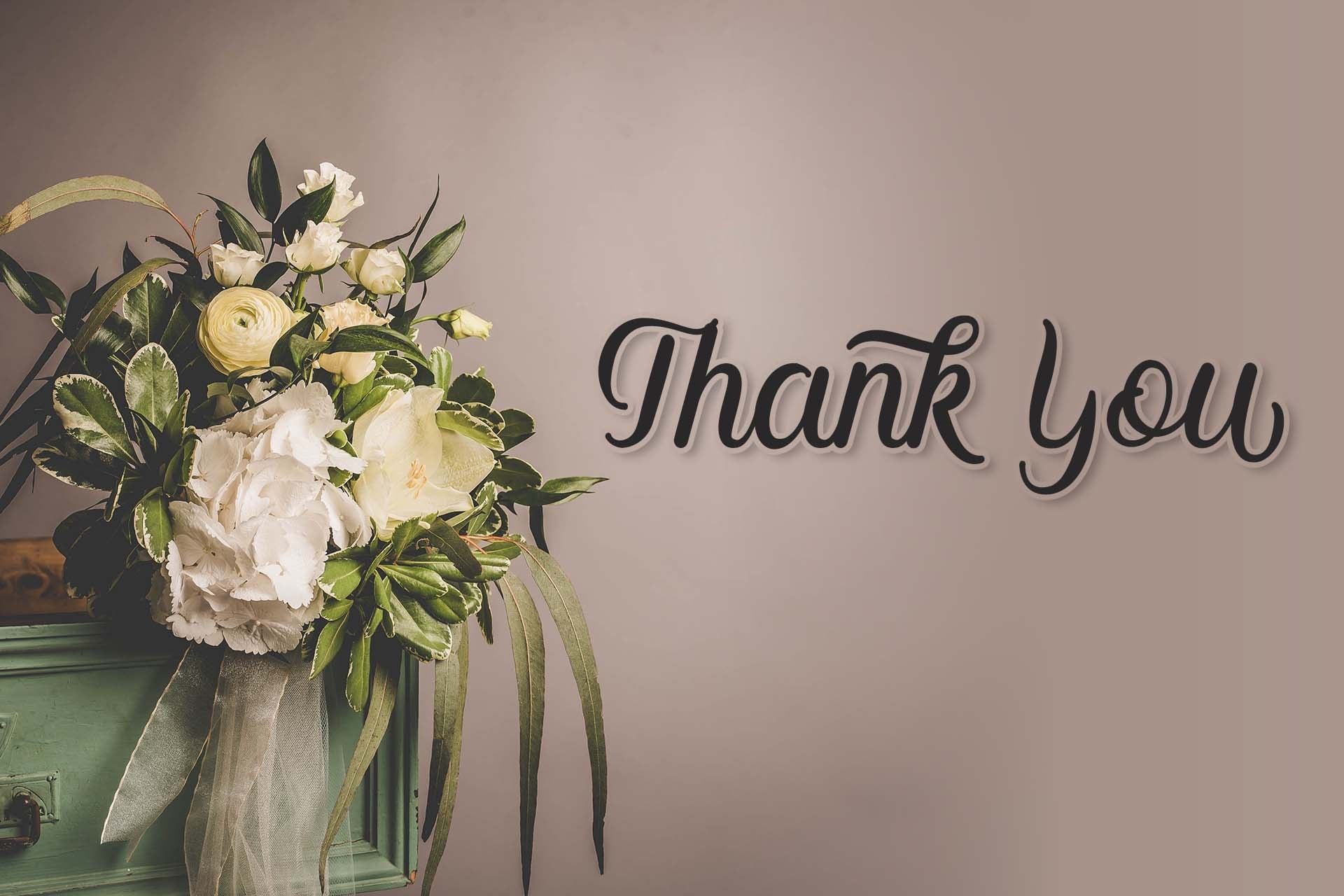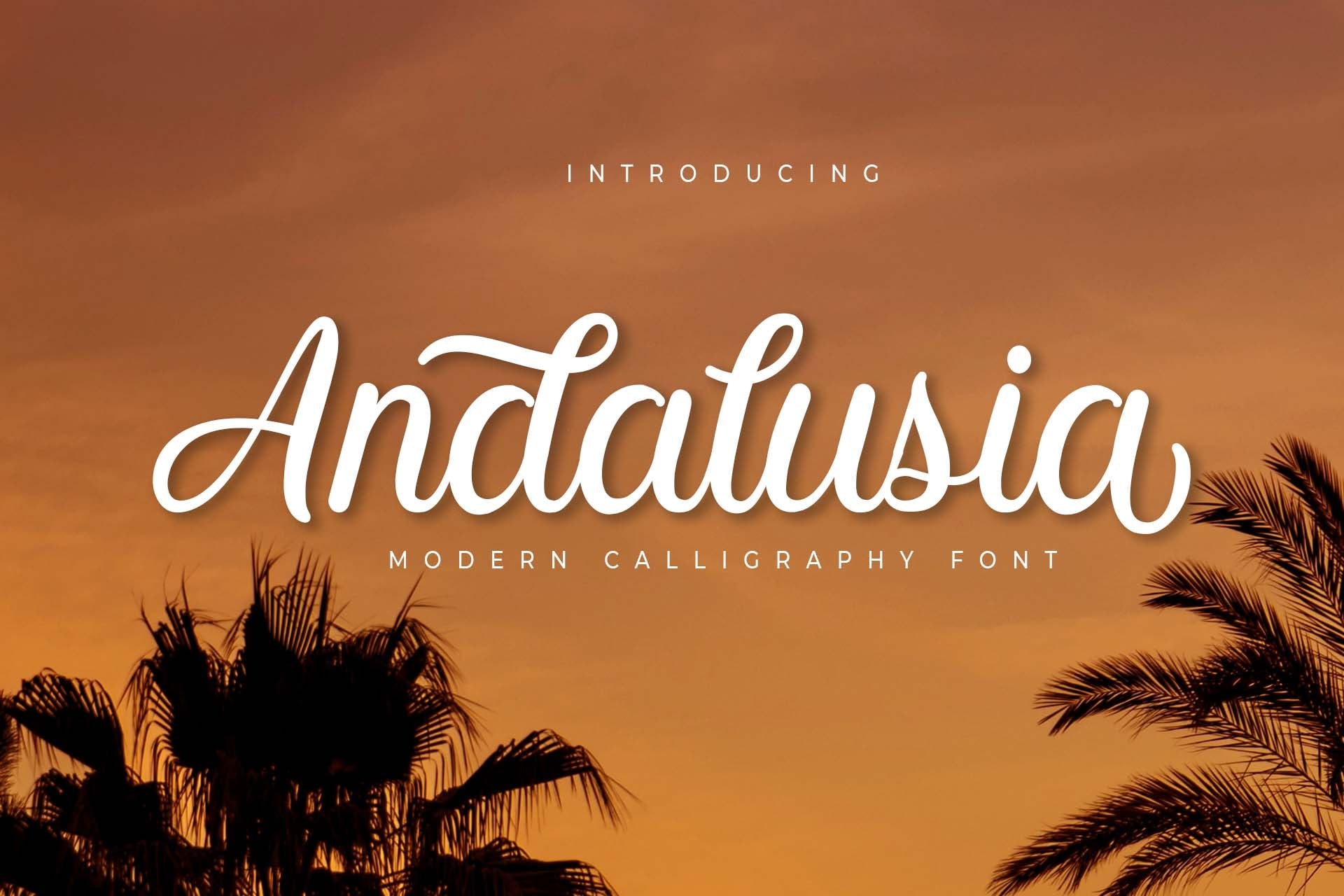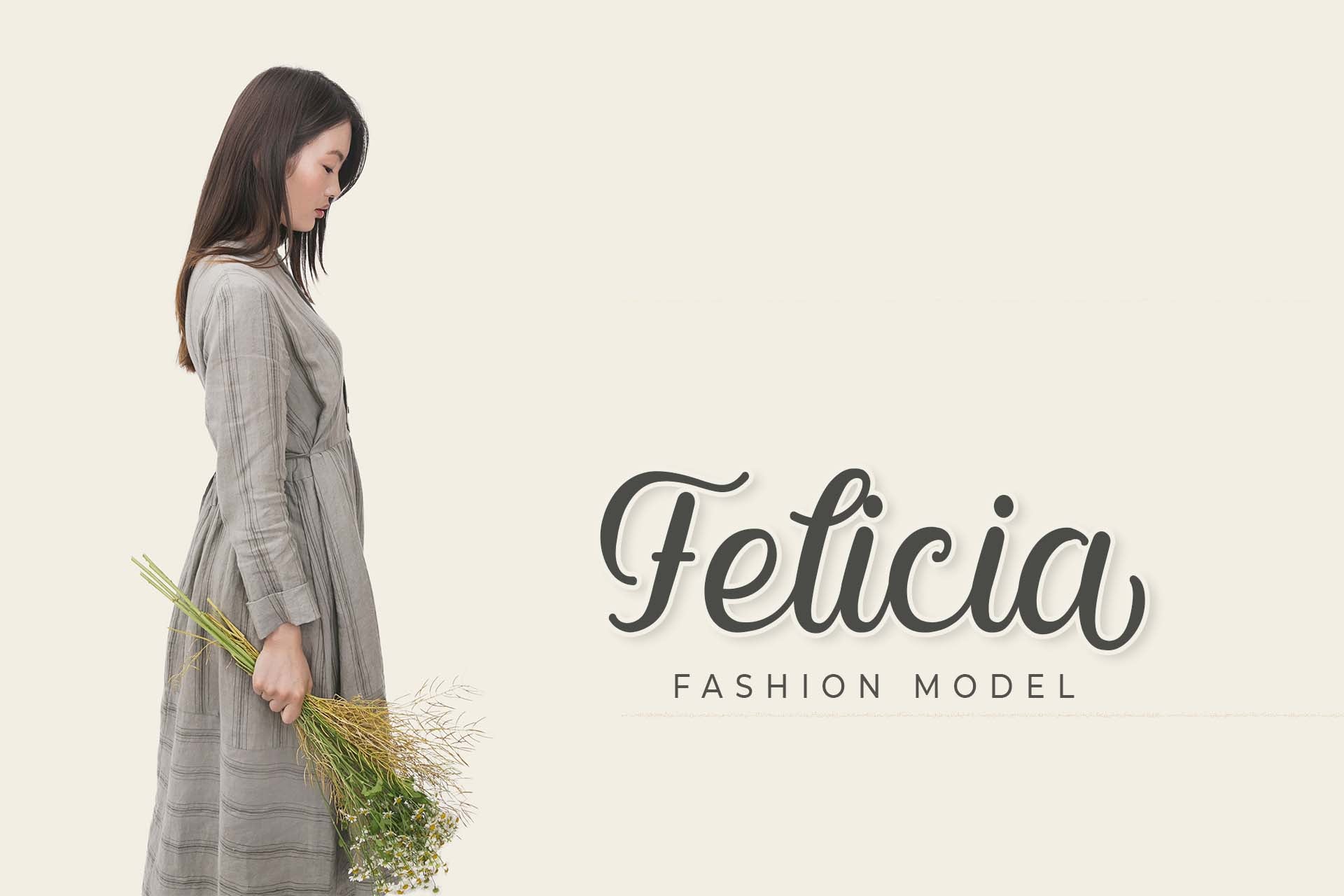
Andalusia
About Andalusia
Andalusia is a flowing and delicate handwritten font that embodies charm and elegance in every character. Use it for projects that need lovely, romantic typography! This font is PUA encoded, which means you can access all of the glyphs and swashes with ease! Add this lovely freebie to your creations and take your designs to the next level!